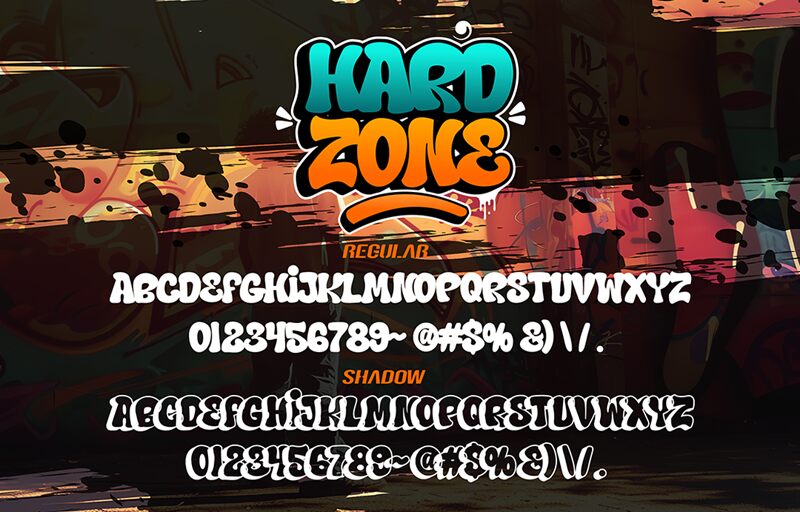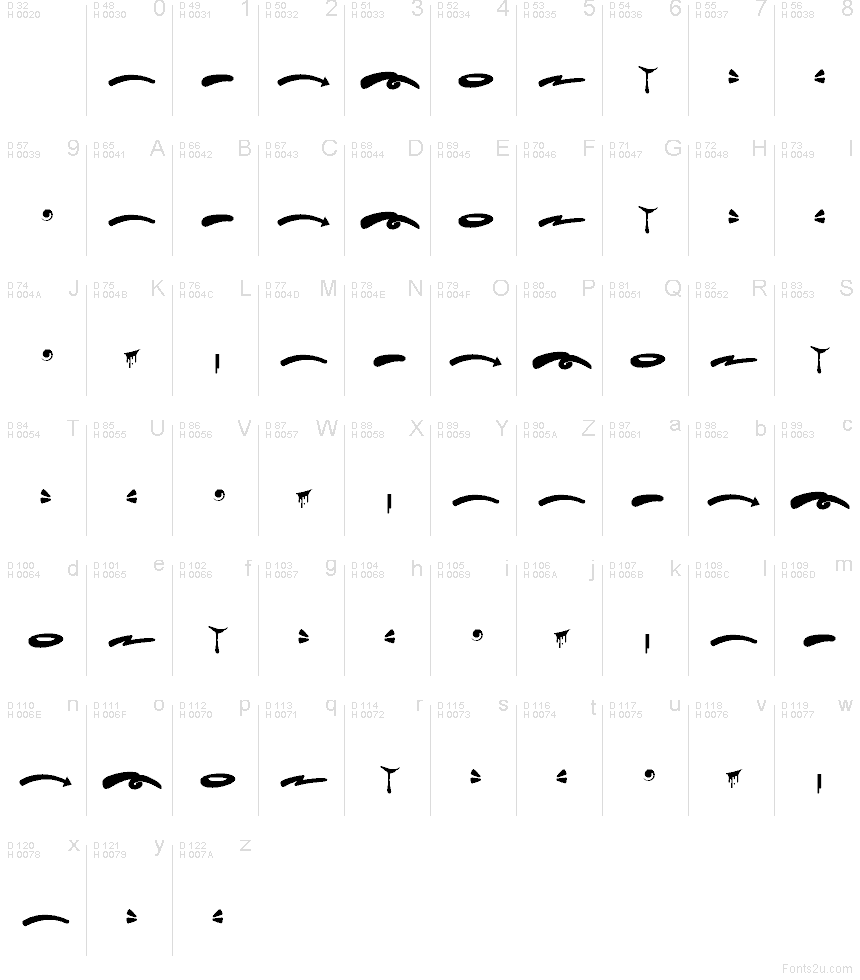
Hard Zone - Swash
Hard Zone - Swash font by Saepul Milah of CikareotypeStudio x figureeStudio is a free graffiti font. This bold swash typeface throws out chunky, inky strokes—arrows, loops, and sweeping tails that feel like they were sprayed in one fast motion. Each mark has a heavy, slightly rounded weight that gives your layouts a raw street energy without looking messy or chaotic.
Using Hard Zone - Swash font, you can underline titles, frame logos, or punch up tags for streetwear branding, album covers, posters, YouTube thumbnails, and social promos. The shapes read clearly even at small sizes, but they really sing when blown up as headline accents. For a strong, readable combo, pair this free font’s wild swashes with a clean, narrow sans serif for the main text.